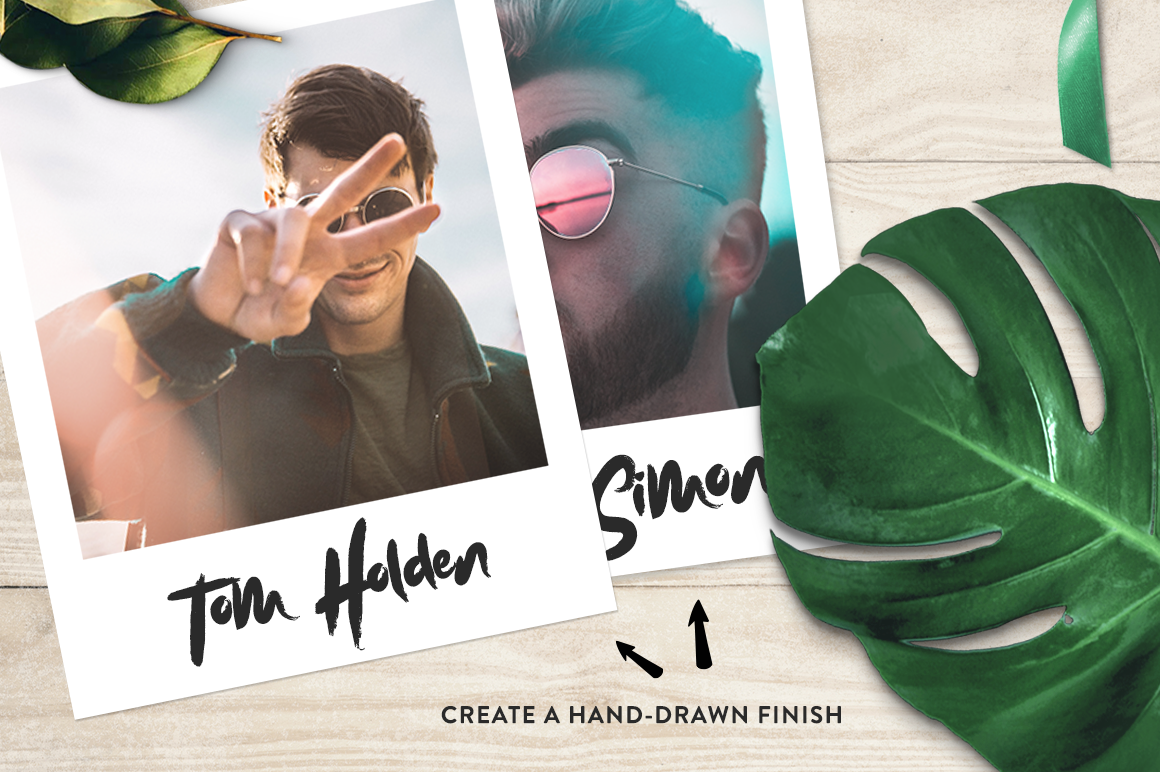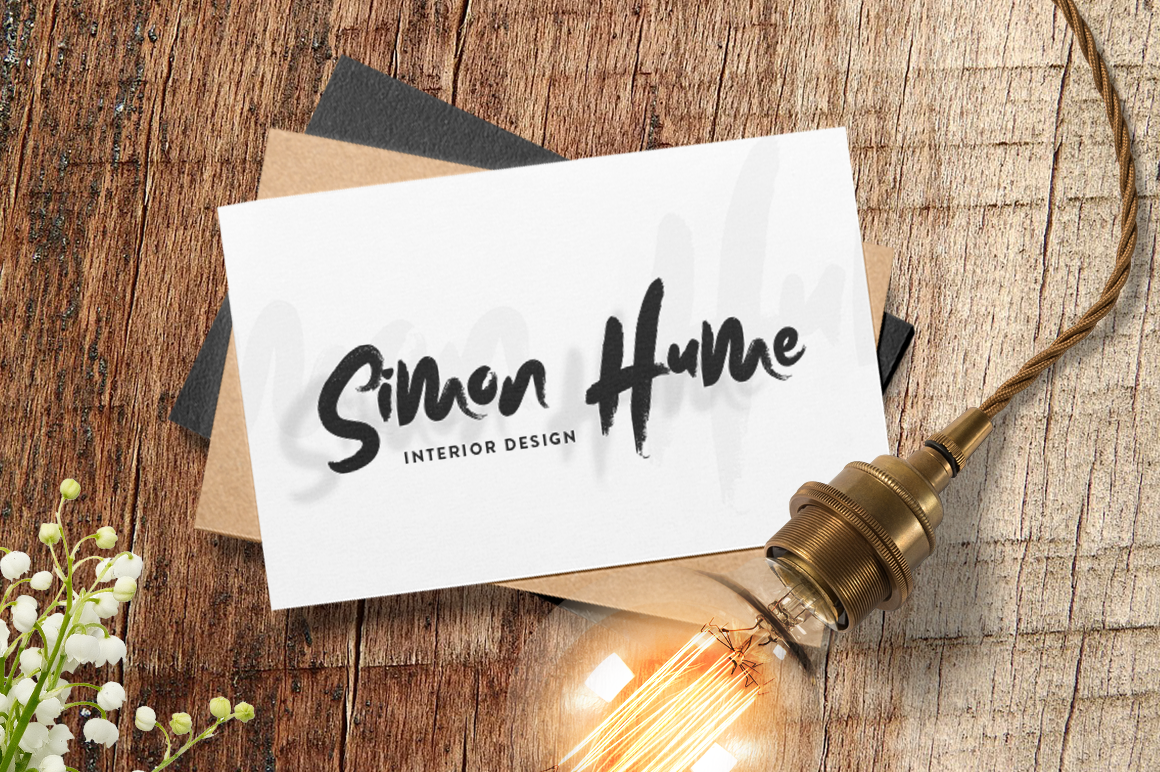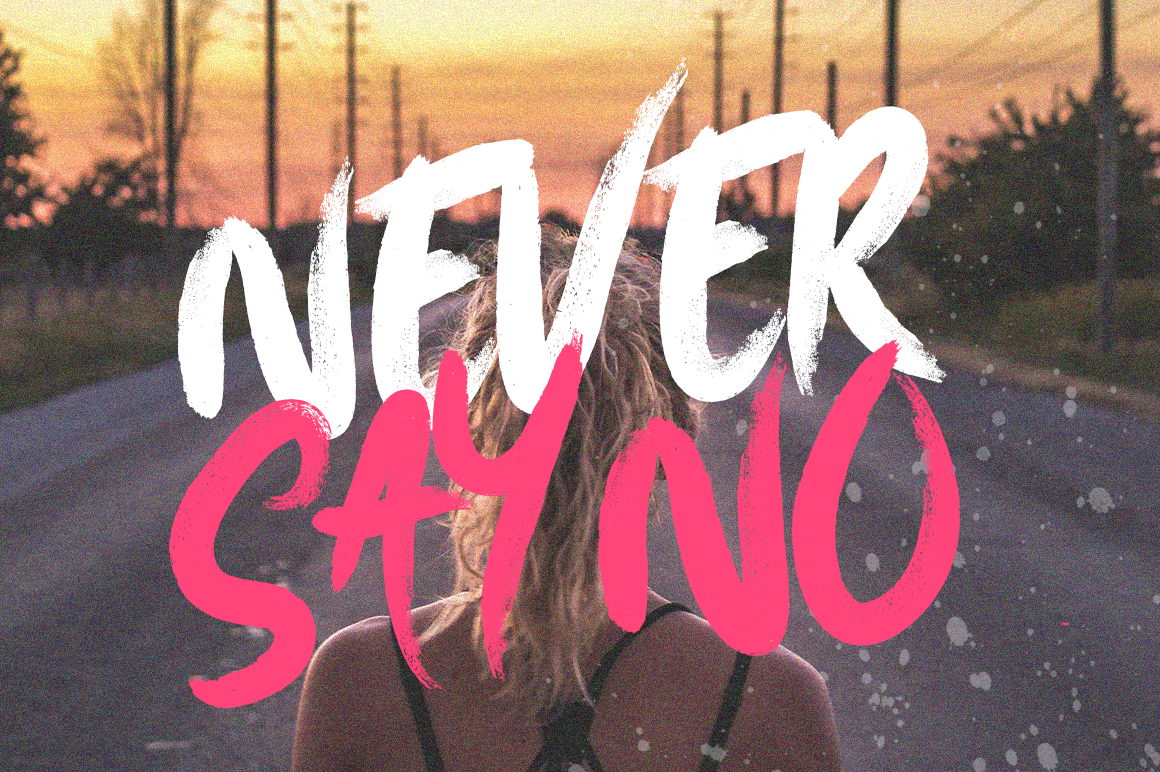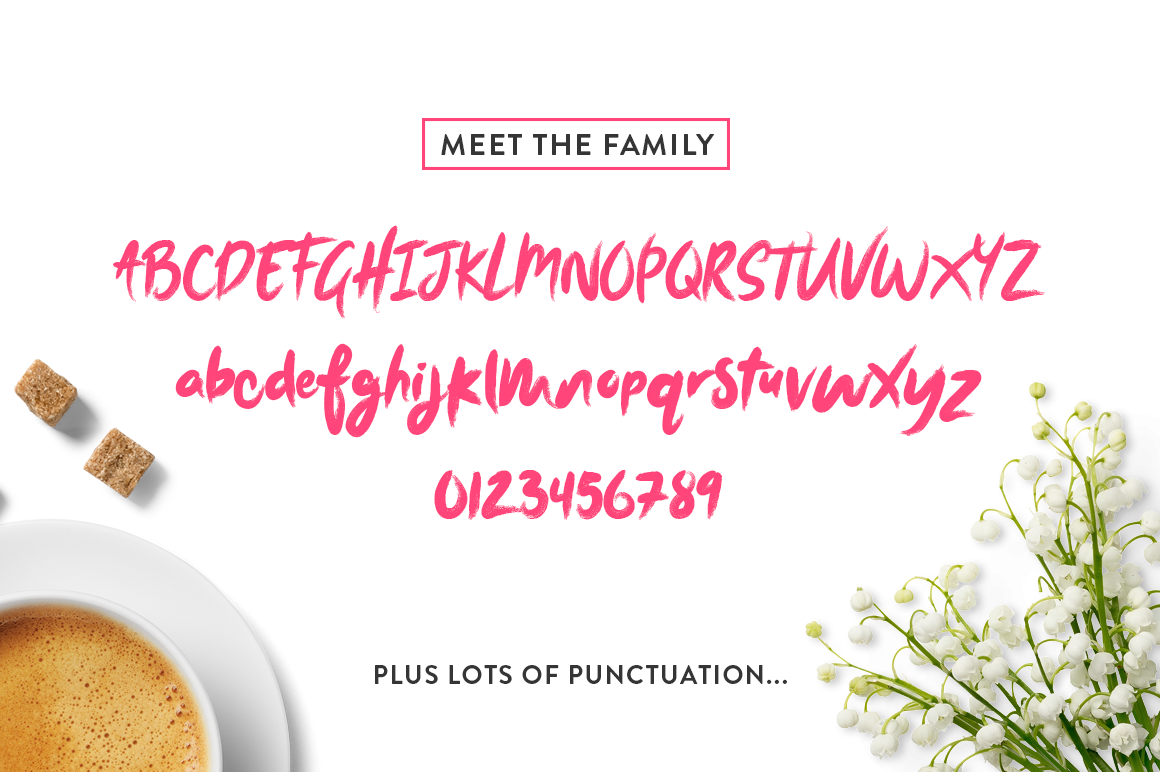
About Morning Simba Script Font
Introducing ‘Morning Simba’ a fancy new brush font with attitude! Perfect for enhancing your designs and giving them the kick-ass look they deserve.